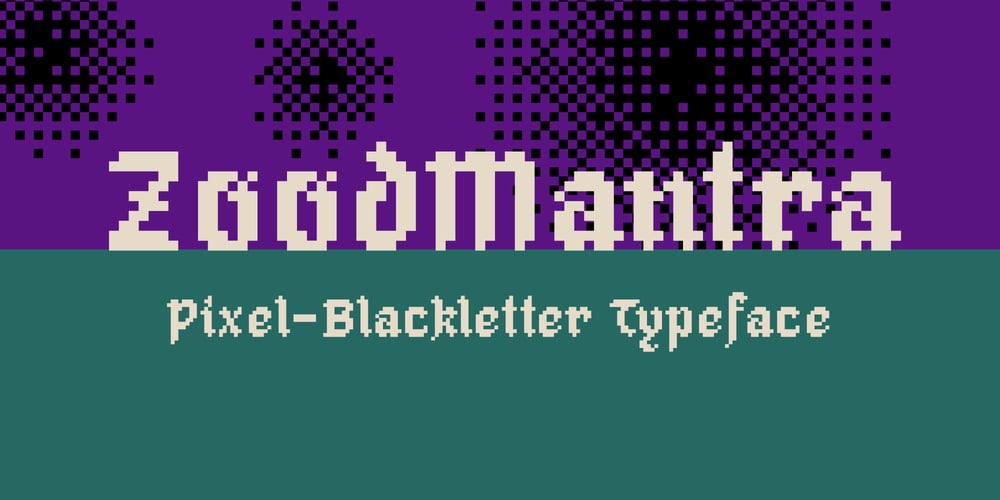
ZoodMantra Font Family was designed by Sansern Rianthong and published by Zooddooz. ZoodMantra contains 1 styles and family package options. ZoodMantra is a Pixel-Blackletter typeface developed for nostalgia purposes in the time of video games. It could represent the fantasy world, magic realms, knight’s tales and warrior legend. Be suitable for commercial materials, textile design, comic books and classic video games.